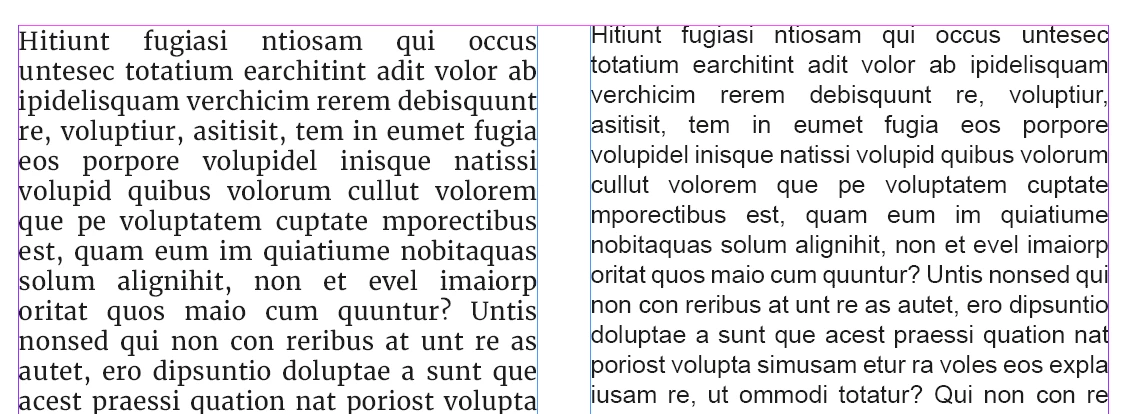
I used Merriwether 12 pt type with 14 pt leading for my book. When I got the proof from Amazon KDP, the type was large, like 14 or 16 pt. I had to male a PDF from Indesign document but I'm not sure if that is the problem. Does anyone know what happened?
Well, to be fair, InDesign only did what you told it to do. 🙂
Did you not print out any pages before you sent it to KDP?
Did the page layouts from KDP match those of your PDF? The font size can't have changed without changes to the text flow and pagination.
Yes James, KDP layout matches the PDF. So you're onto the problem...it's not KDP or PDF...it's Indesign. Somehow, my 12 pt Merriweather needs to be change to at least 10 pt to accommodate the large type face. As Eugene above said, it is too big of a pt size. It looks fine as an E book but the physical book proof looks like a Dr Seuss book (not that there's anything wrong with his books - my audience isn't gtrade school kids). Do you think I need to do the book over in 8 or 10 pt Merriwether and sned a couple chapters into KDP to see actual proofs before revising the whole book?
I'd do a few sample pages and ask a local printers to print them off for you - might cost a minimal amount - but it would be worth it.
If only to check the type size is suitable.
How do you know it's 14pt?
12pt is quite large.
If it's 12pt in your document then it's 12 pt in print - unless the printed piece was scaled up in size which would account for the difference in size.
It's quite a 'large' font - here it is alongside Arial 12pt
As you can see 12pt Merriwehter font alongside another font at 12pt is quite large.
For a printed piece I wouldn't use 12pt for any body text.
Thanks Eugene, good question. I don't know if it's 14 pt. I used to have one of those clear pt size charts where you could lay it on top of type t determine the size. But your eaxample was revealing: Merriwhether is a heavier font but I liked the thickness of it. So It looks bigger than Arial 12 pt. Most revealing is "I wouldn't use 12pt for any body text". I thought that 12pt was the standard body tesxr for books, mags, etc.. I wish I had known this before I made a 153 book! I put a quarter on the printed page of the proof of the book so you can see my "12pt" Merriweather...which is too large and the leading is also way too big (14 pt).
12pt is quite large for body text.
The right font size is something that suits the content - you don't want it too small it can't be read. or too big that it looks childish - unless you're going for childrens' market - or perhaps visually impaired (where the visually impaired market would have guidelines).
Depends on what the content is and if that font size suits.
Typically you want about 60-80 characters per line for readability in a typical book.
Hard to know what way this is going to look.